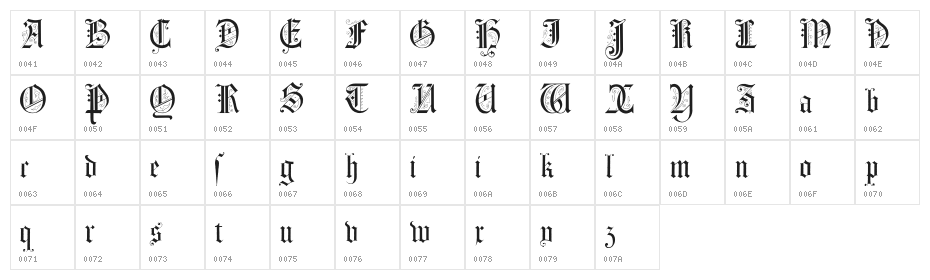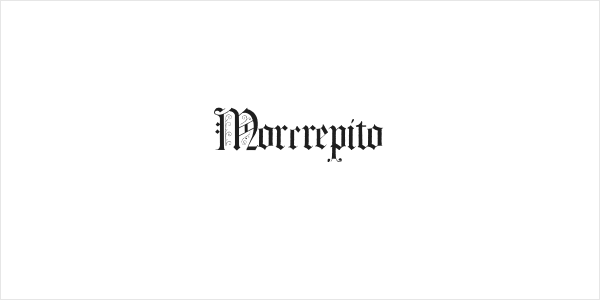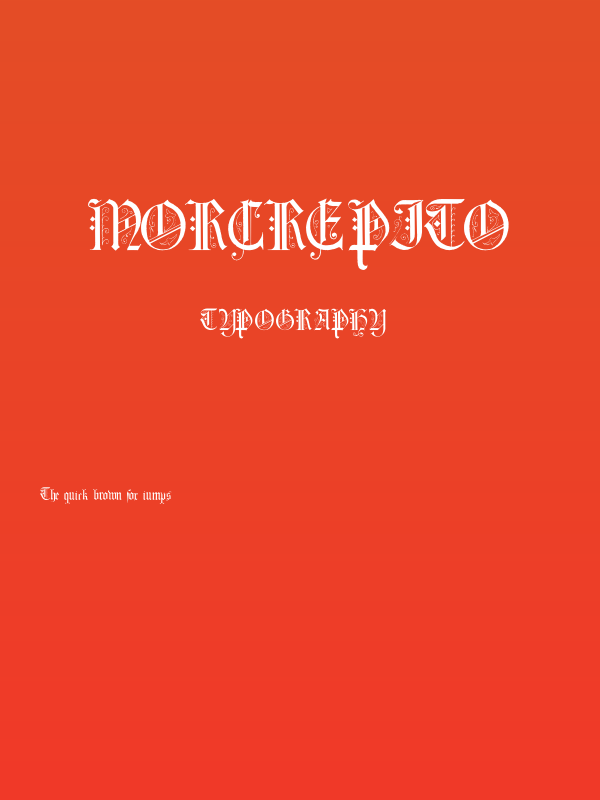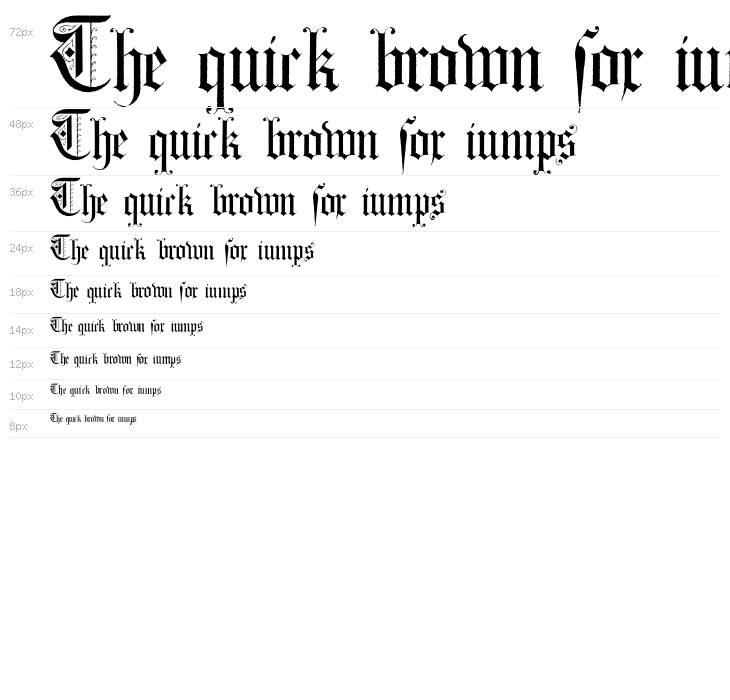
Morcrepito Font
Morcrepito Description
This font embodies a traditional blackletter style, characterized by its ornate and intricate design. The uppercase letters feature elaborate flourishes and sharp angles, giving them a dramatic and historical appearance. The lowercase letters maintain the same level of detail, with pointed edges and decorative elements that enhance the overall gothic aesthetic. The font's bold strokes and high contrast between thick and thin lines contribute to its striking visual impact. It is reminiscent of medieval manuscripts and evokes a sense of antiquity and elegance.
Overall StyleVintage
Use CaseLogos, Headlines, Decorative purposes
Proposed ProjectsIdeal for projects requiring a historical or gothic touch, such as book covers, posters, or themed event invitations.